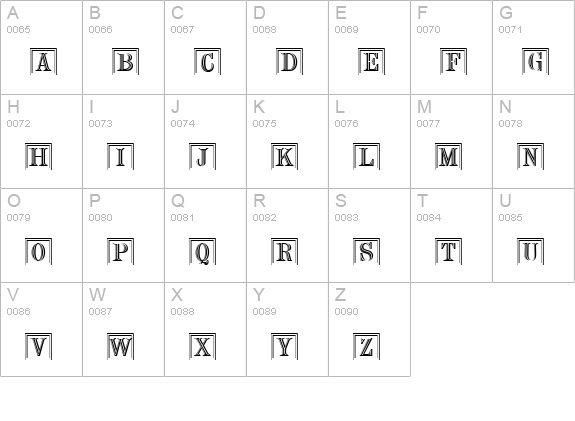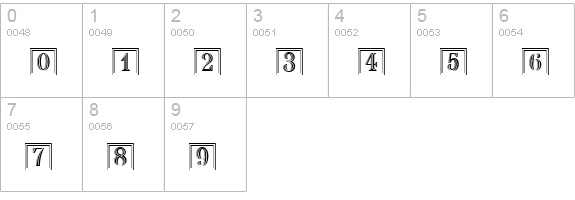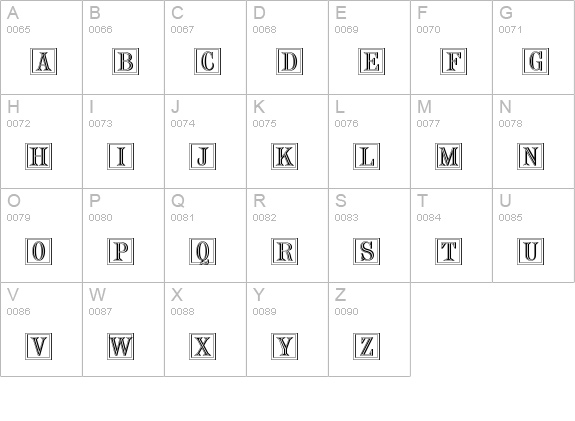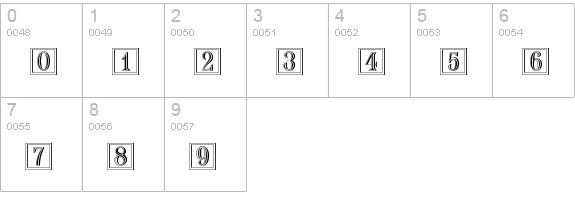
ChiselIniD font is a bold and expressive typeface that exudes strength and sophistication. With its chiseled edges and unique design, this font is perfect for making a statement in your designs. Whether you're creating a poster, logo, or heading, ChiselIniD font will bring a touch of elegance and modernity to your projects. Best of all, ChiselIniD font is available for free download at FontsMarket.com. This means you can easily access this striking font and use it in your personal or commercial projects without any restrictions. So why wait? Download ChiselIniD font today and elevate your designs to the next level!